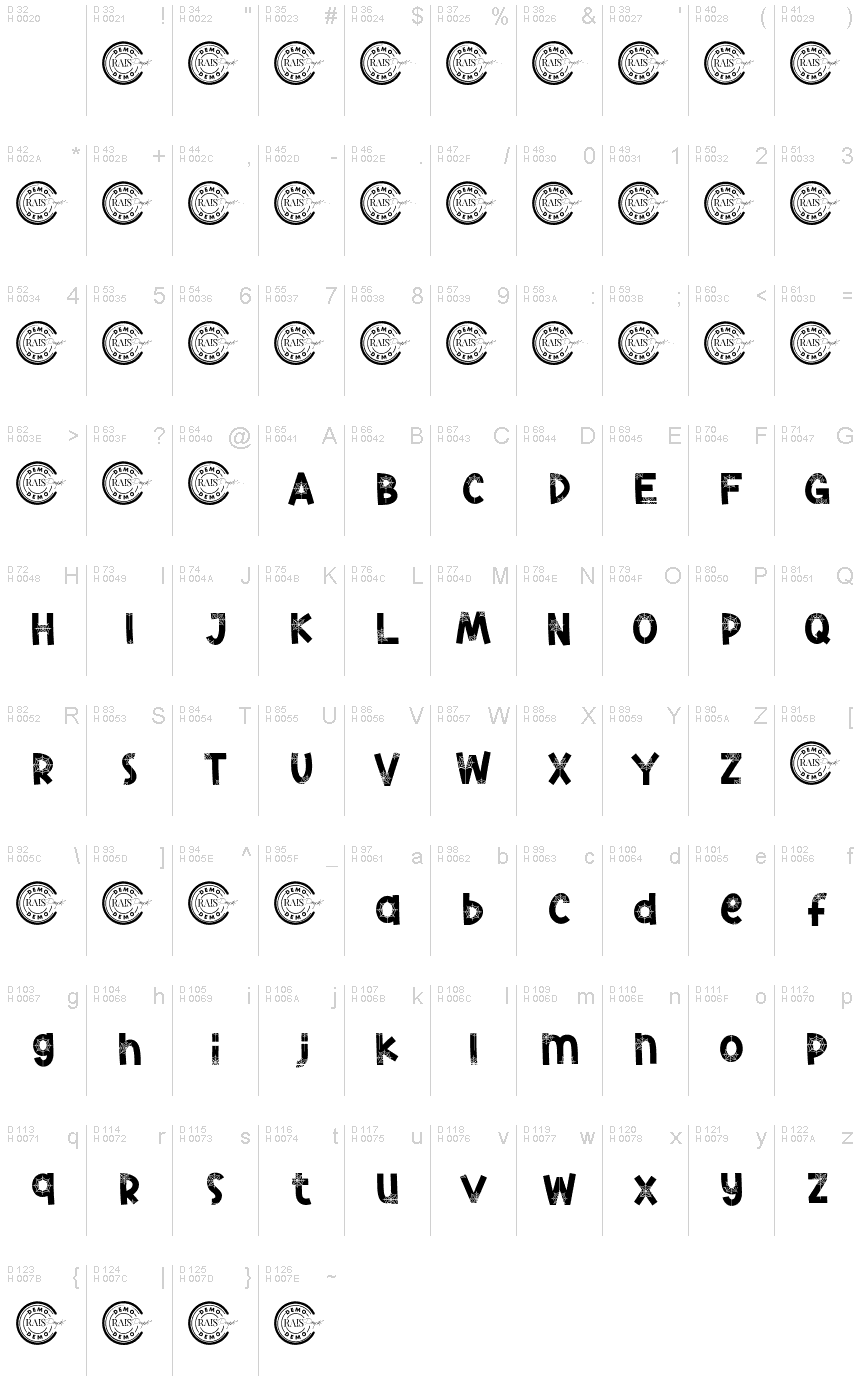
Red Spider by RaisProject is a bold display font that adds a decorative comic style to any project. With its unique design, Red Spider is suitable for a variety of projects such as children's books, posters, and comics. This versatile typeface can be used for both headers and body text. Its bold weight ensures that your message will stand out and make an impact. Whether you want to add some fun to your designs or create a playful atmosphere, Red Spider has got you covered. Get creative with this one-of-a-kind font!